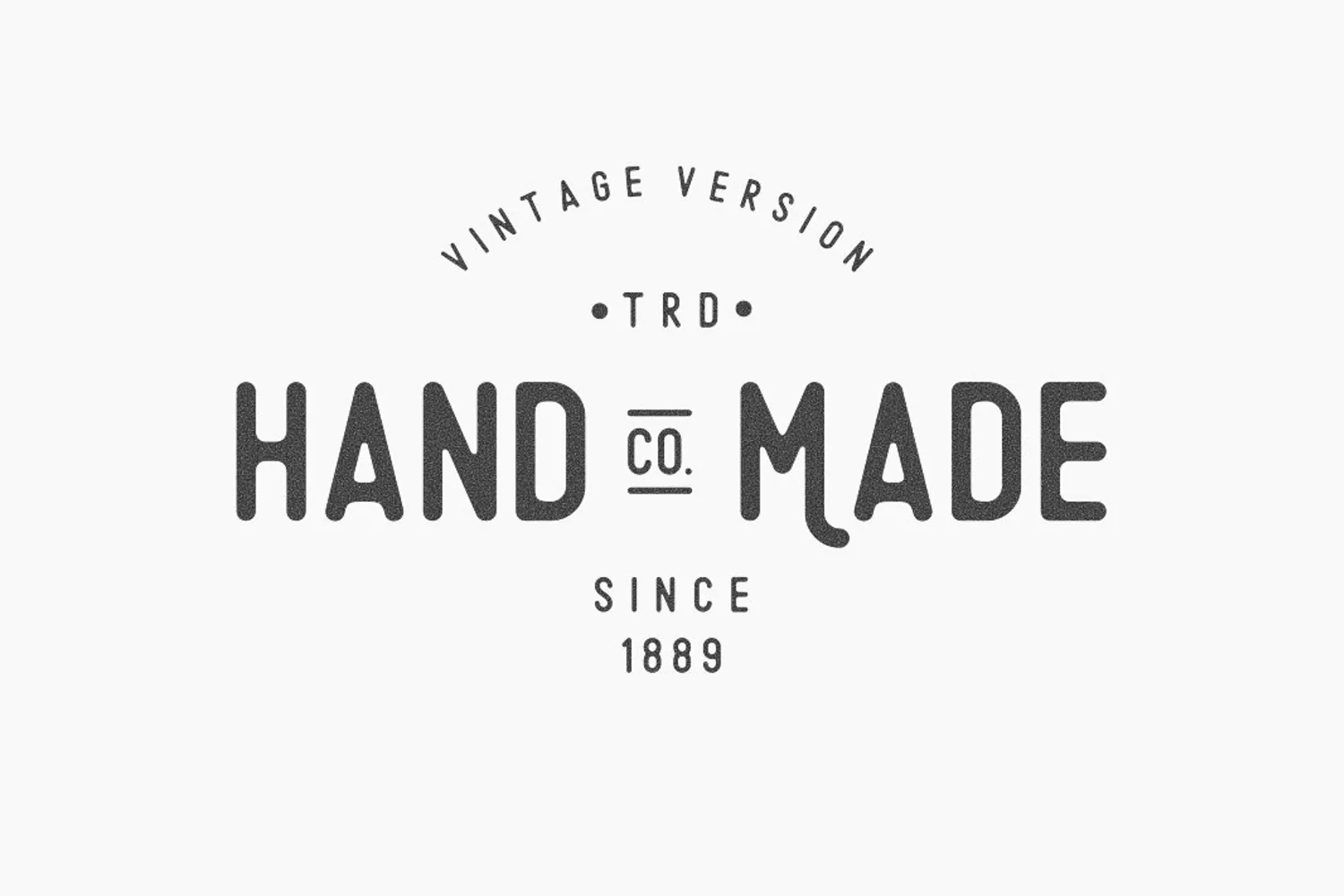
Original - A Minimalist Font
Introducing Original Typeface - A minimal and vintage character! it's perfect for logos, name card, magazine layouts, invitations, headers, or even large-scale artwork.
- Uppercase Alternate
- Numeral & Simbols
- Support International Language